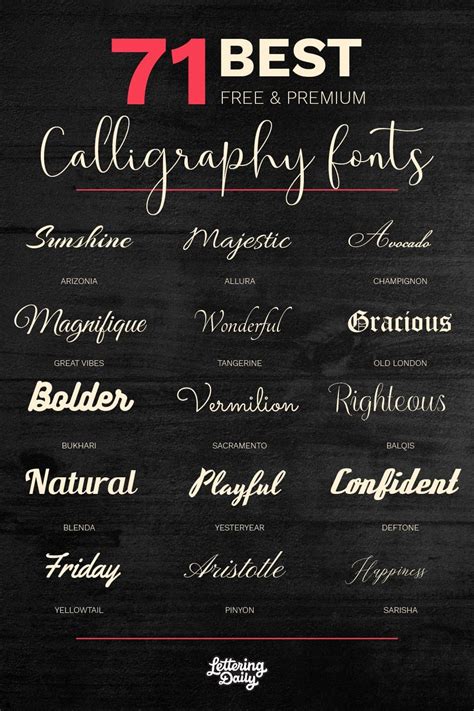
The 15 Best Free Calligraphy Fonts for Designers
Motisan script font (otf, ttf) 4. This font is classic and understated. Einstein font (otf, ttf, woff) 2. Web 26 best calligraphy fonts 1. Web archive of freely downloadable fonts. It's also legible and clear, with decent space in between each. Web the best free calligraphy fonts 1. Our overall favorite calligraphy font is wonderful calligraphy by rockboystudio. Web 40 best calligraphy fonts 1. Web free calligraphy fonts 1.
Web 26 best calligraphy fonts 1. Einstein font (otf, ttf, woff) 2. Web free calligraphy fonts 1. Web 26 best calligraphy fonts 1. Amatira typeface (otf, ttf, woff) 3. Motisan script font (otf, ttf) 4. Web 40 best calligraphy fonts 1. Our overall favorite calligraphy font is wonderful calligraphy by rockboystudio. This font is classic and understated. It's also legible and clear, with decent space in between each. Web archive of freely downloadable fonts.